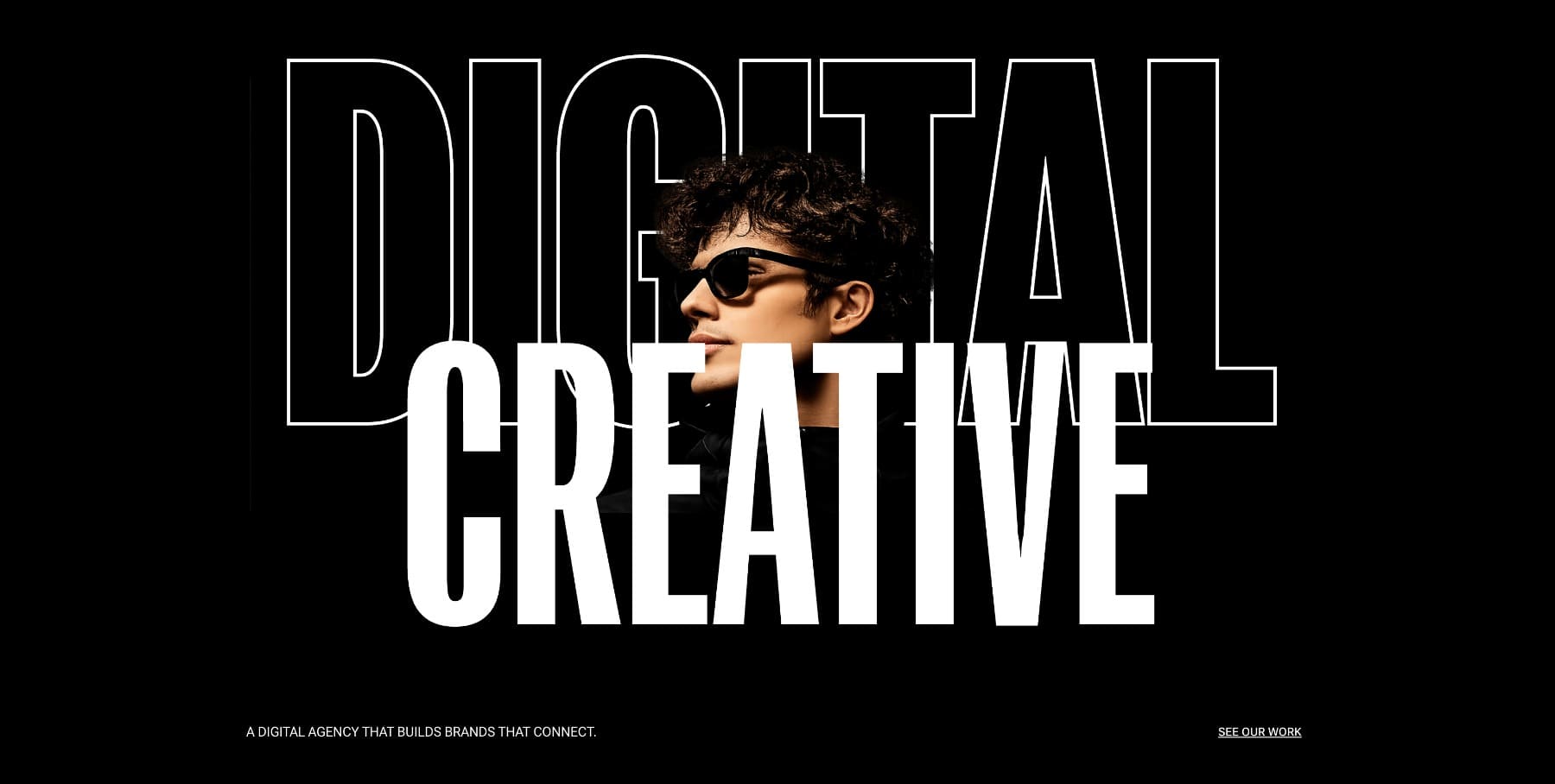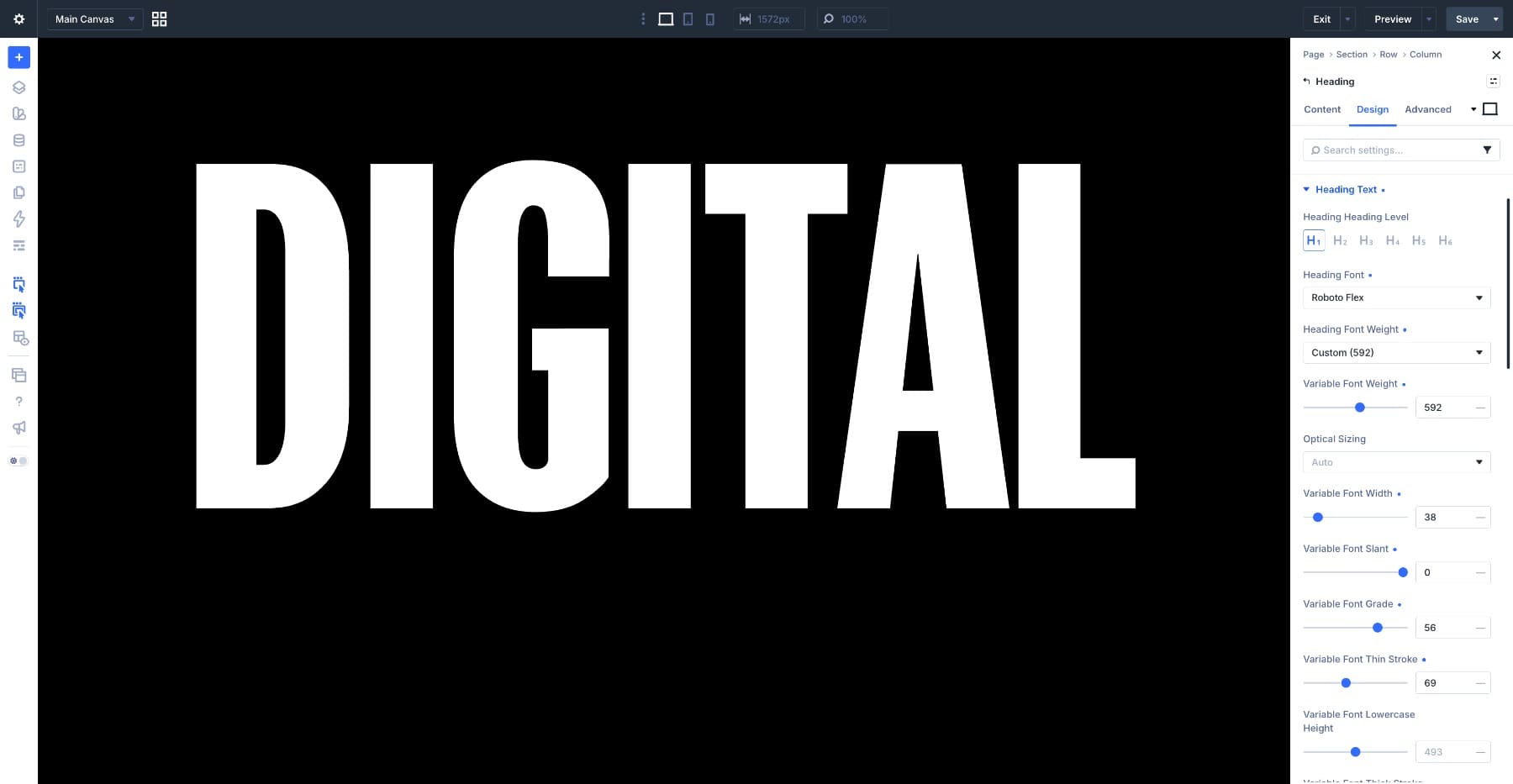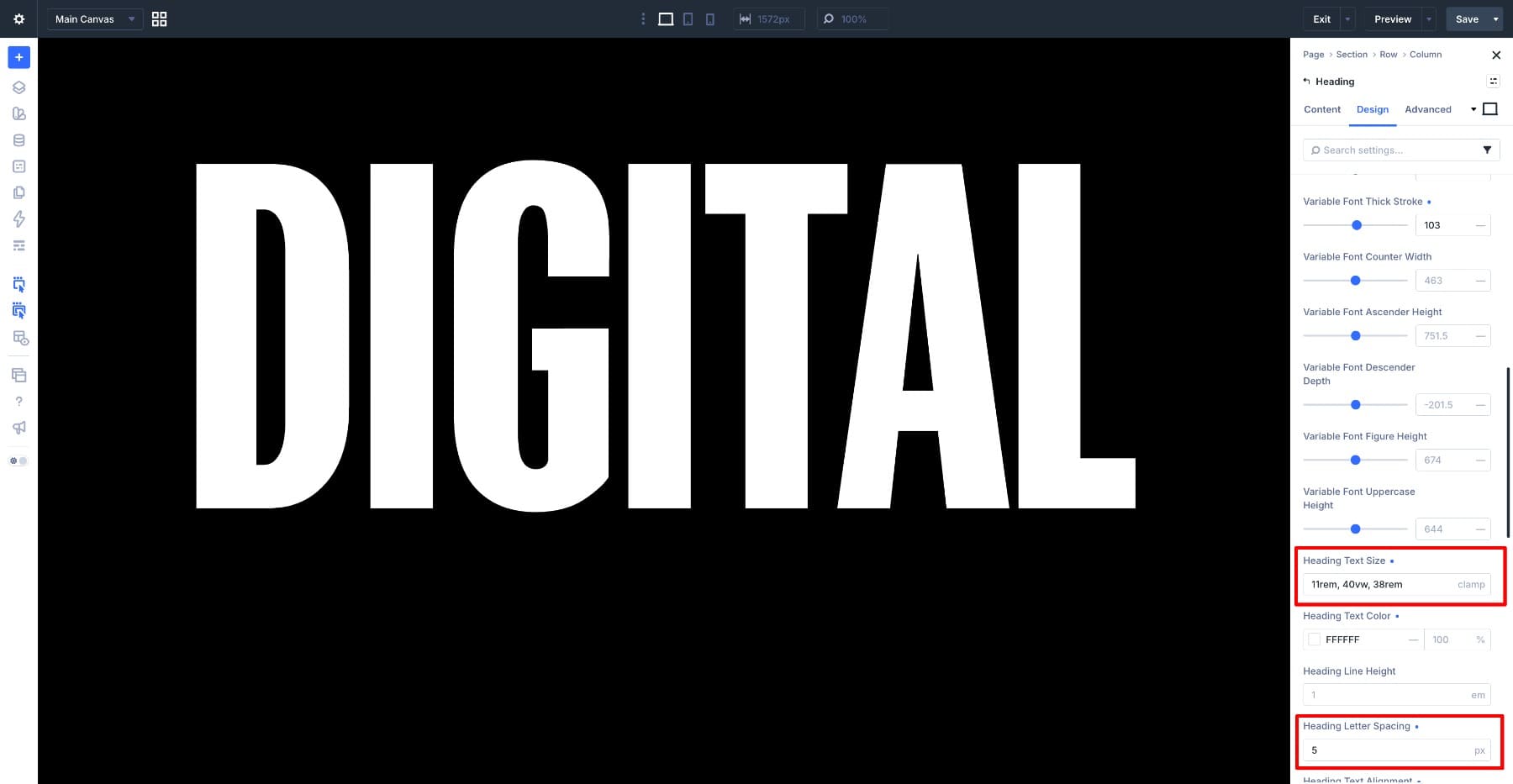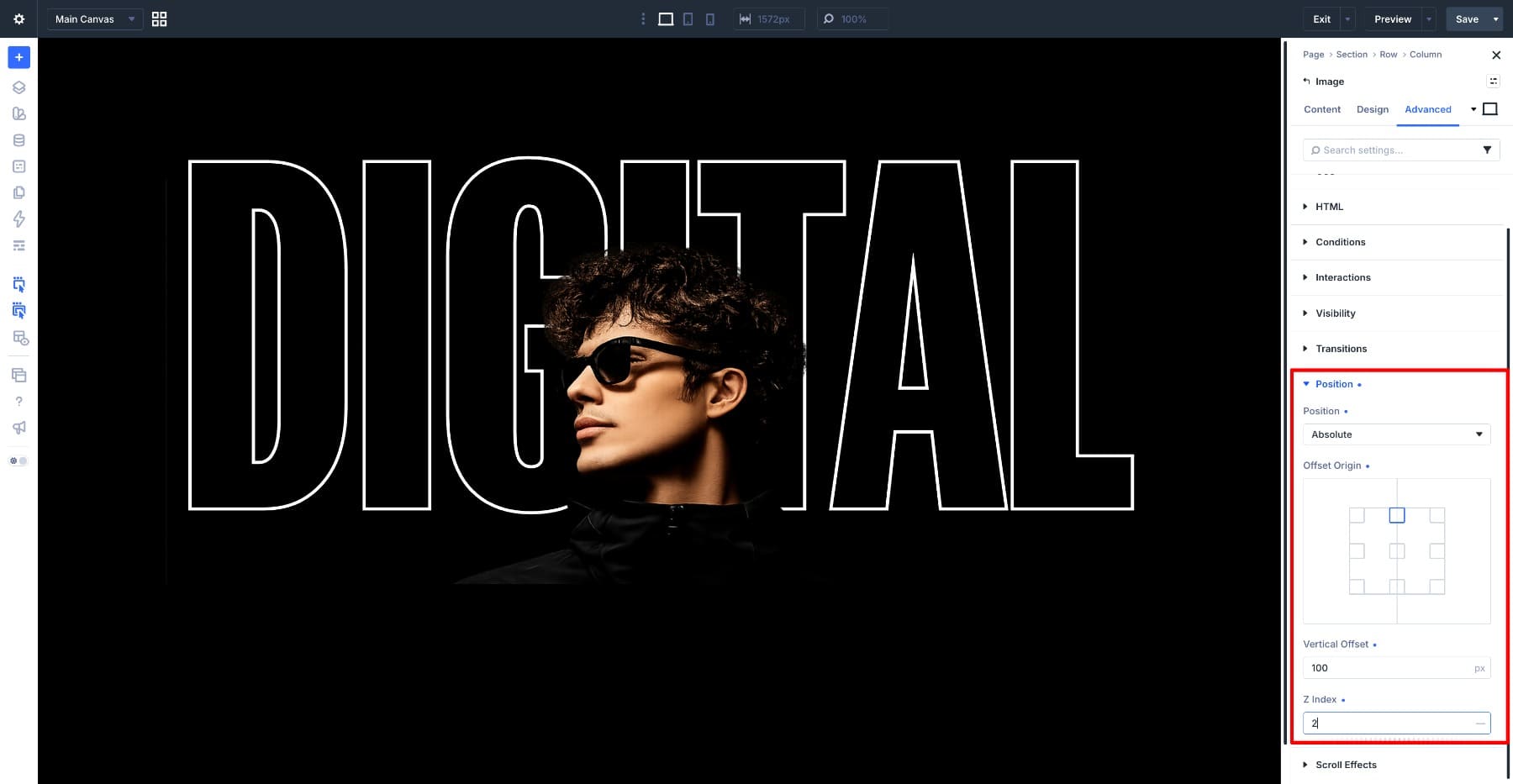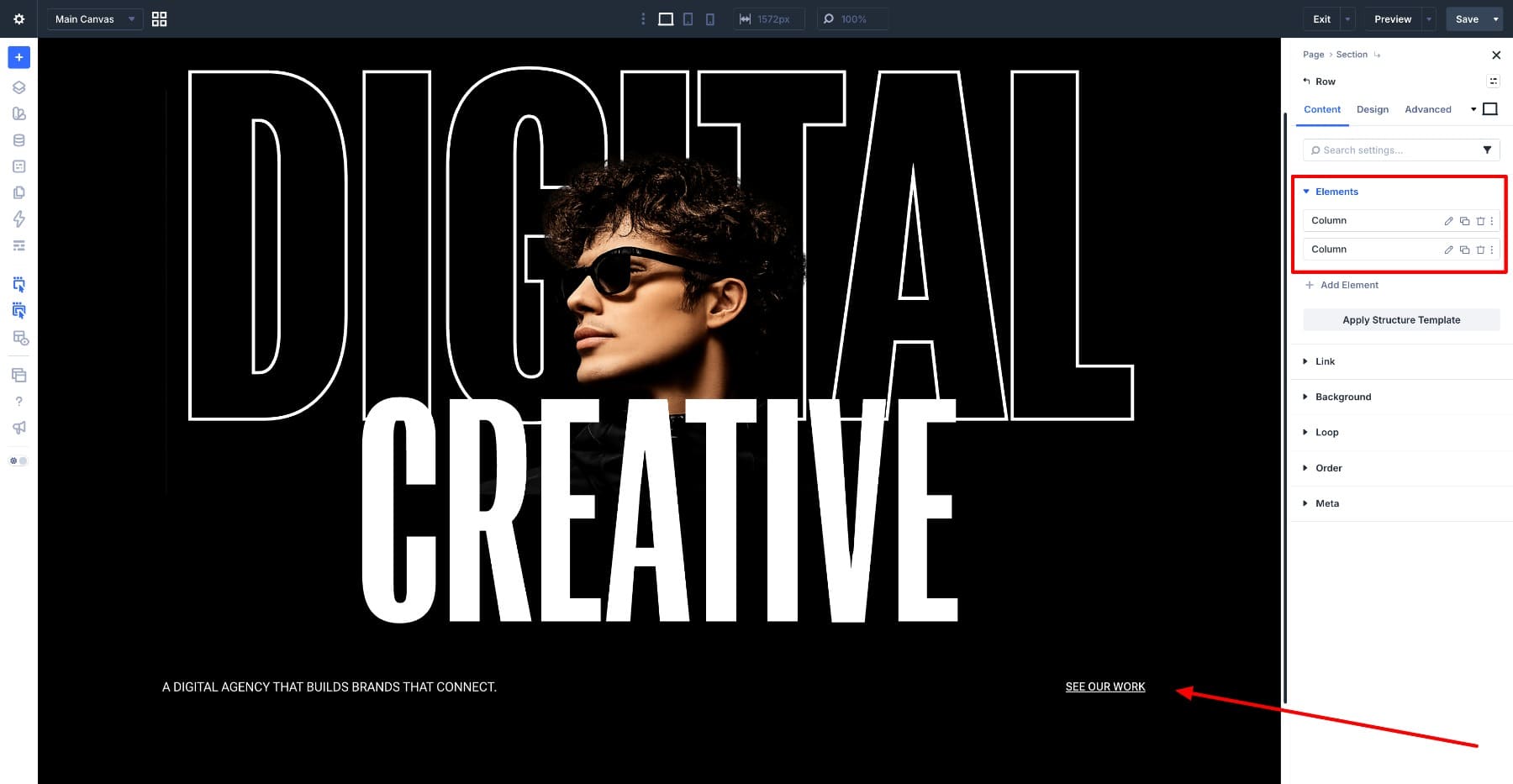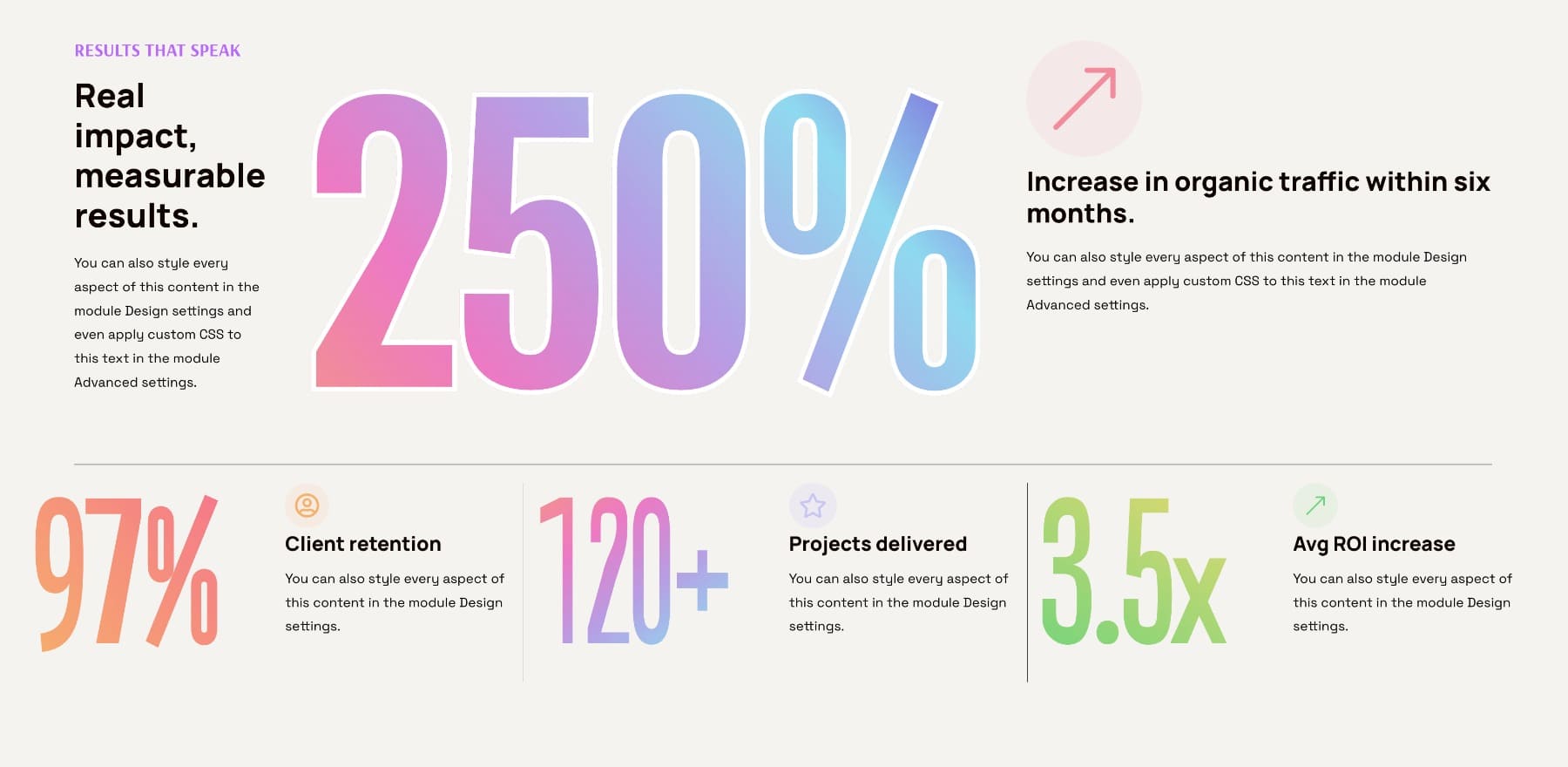
Variable fonts, Text Fill, and Text Stroke are 3 other typography controls in Divi 5. The font controls the form of the letters. The fill controls what seems within them. The stroke controls the threshold.
You’ll use each and every one by itself, however they turn out to be extra robust whilst you mix them. A variable font could make a heading thick sufficient for a gradient to turn obviously. A clear fill and stroke can flip a phrase right into a hole define. A large, heavy letterform can hang a picture development with out shedding clarity.
There’s no unmarried recipe. Each and every design beneath makes use of the similar 3 elements otherwise. The primary layers defined and forged textual content round a cutout photograph. The second one makes use of a gradient-filled quantity with a mild stroke. The 3rd fills a full-width heading band with a picture development.
Alongside the way in which, we’ll take a look at how variable font axes, Textual content Fill, Textual content Stroke, Gradient Variables, and presets paintings in combination so you’ll be able to construct extra intentional typography results immediately within Divi 5.
Working out Variable Fonts, Textual content Fill, And Textual content Stroke
Those settings reside within the Design tab of text-based modules and textual content possibility teams, together with Textual content, Heading Textual content, and Identify Textual content. Variable font controls seem close to the font variety when the chosen font helps them. Fill and stroke settings seem within the textual content results house of the similar textual content workforce.
We lined each and every fill kind in our guide to Divi 5’s text fill options. On this educational, we’ll center of attention on how the settings have an effect on each and every different when you get started combining them.
Variable Fonts
Follow a supported variable font to a component, and Divi 5 presentations the axes to be had for that font. Each and every axis adjustments a part of the letterform.
Weight controls how heavy the strokes are. Width controls how slim or expanded the letters really feel. Relying at the font, you may additionally see axes corresponding to Slant, Grade, Skinny Stroke, Thick Stroke, or different font-specific controls.
For this educational, the necessary section is the skin house within each and every letter. Heavier and wider settings typically give fills more space to turn. Lighter and narrower settings depart much less room for gradients, pictures, and strokes to paintings.
The open spaces within letters like e, a, o, and g are referred to as counters. If a stroke is simply too thick or a font weight is simply too tight, the ones counters can begin to shut up. Stay that during thoughts as we construct the examples.
Textual content Fill
Textual content Fill controls what seems throughout the letter form.
Set Fill Kind to Gradient, and the letters are full of a gradient. Set it to Symbol, and the letters turn out to be a masks for a picture. Set it to Clear, and the interior of the letters turns into see-through, which goes neatly when paired with a stroke for defined textual content.
The fill most effective has the interior of the letter to paintings with. A heavy heading offers the fill a large floor. A gentle heading offers it a skinny strip. This is why a gradient can glance wealthy within a daring heading however virtually flat within a skinny one.
Textual content Stroke
Textual content Stroke attracts a line across the fringe of the letters. Crucial controls are Stroke Width, Stroke Colour, and Stroke Place.
Stroke Place issues as it adjustments how a lot of the fill remains visual. A targeted stroke sits in part throughout the letter and in part outdoor it. The internal section covers one of the vital fill. An out of doors stroke protects extra of the fill since the define sits past the letter form.
As an example, a targeted 3px stroke can paintings properly on a big, heavy heading as a result of there’s nonetheless quite a few fill visual throughout the letters. On a smaller or lighter heading, that very same stroke can take over an excessive amount of of the letter and make the fill more difficult to peer.
When you wish to have a stroke to outline the threshold with out chopping right into a gradient or symbol fill, use an outdoor stroke place the place to be had. When you wish to have the stroke to really feel extra built-in with the letterform, a targeted stroke can nonetheless paintings, particularly at massive sizes.
How The 3 Have an effect on Each and every Different
The font comes to a decision the letter form. The fill sits within that form. The stroke defines the threshold. That order issues. Set the variable font axes first so the letters have the precise weight, width, and counters. Then make a choice the fill. Then make a decision whether or not the stroke must be delicate, daring, targeted, or outdoor.
As soon as you know how the font form, fill, and stroke have an effect on each and every different, you’ll be able to create your personal combos with out depending on fastened formulation.